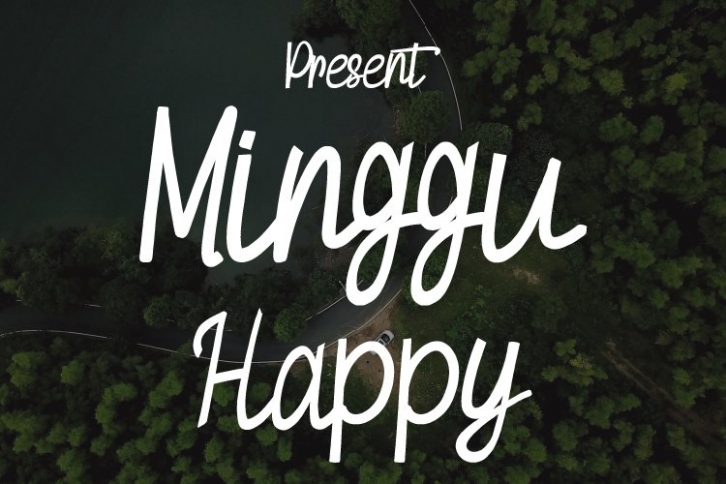
Minggu Happy is a gorgeous font that was realeased on August 13, 2022. The font can be used in many style contexts and design environments. Perfect for invitations, magazines, websites, logos, and more! It was designed by kreatif eric and the file size is 17.10 MB. Thanks for checking out this font!